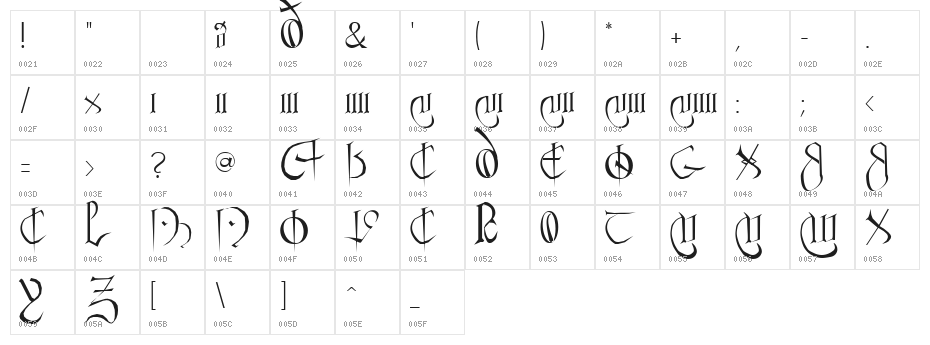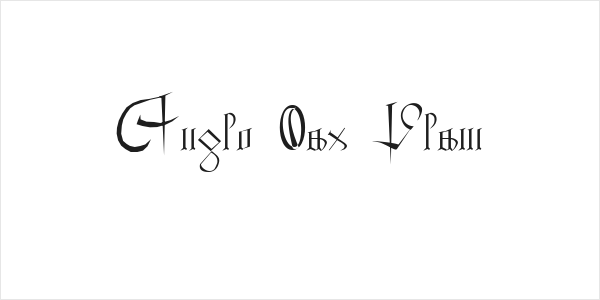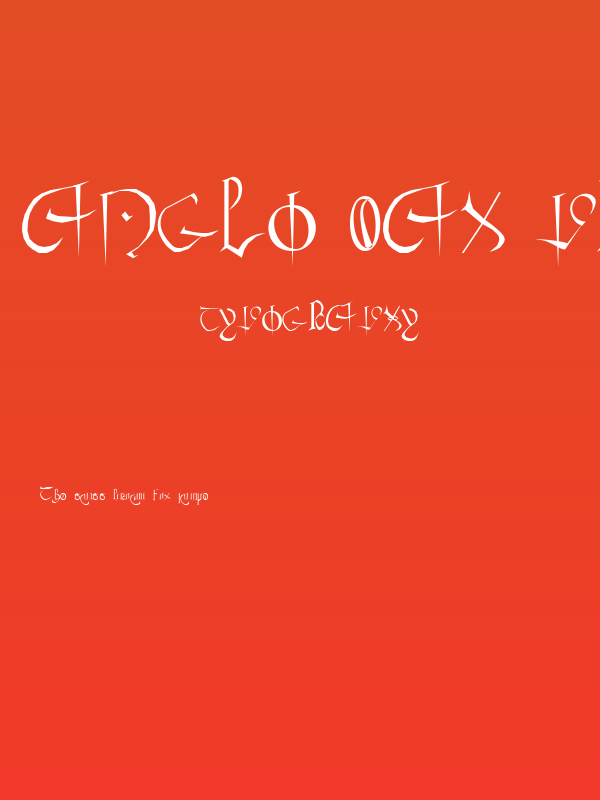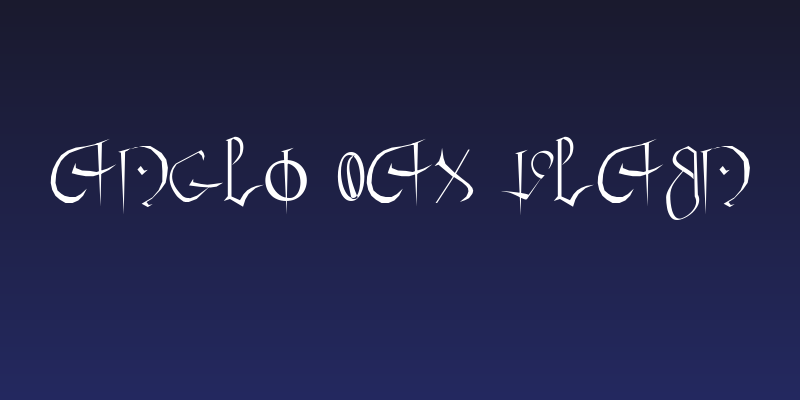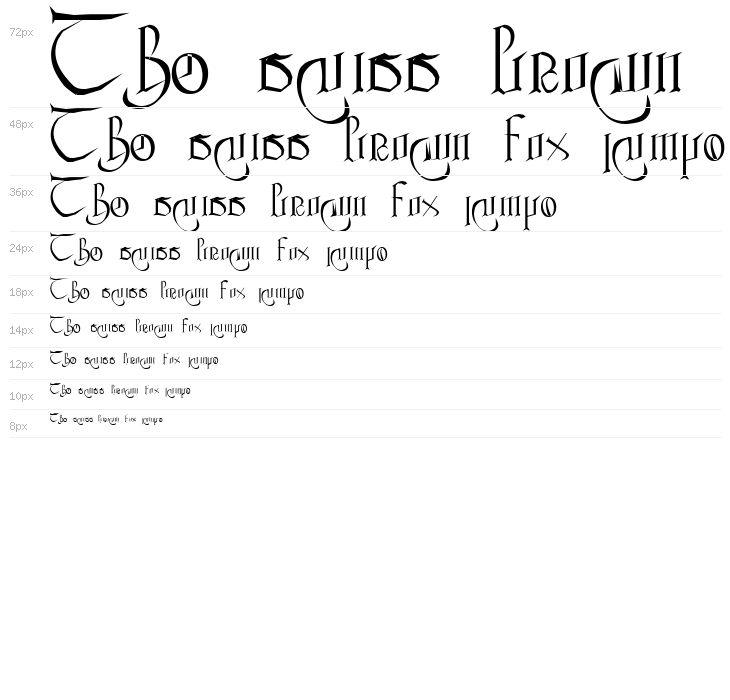
Anglo Sax Plain Font
Anglo Sax Plain Description
This font features a distinctively medieval and gothic aesthetic, characterized by sharp, angular lines and intricate detailing. The uppercase letters are bold and commanding, with a strong presence that evokes historical manuscripts. The lowercase letters maintain the same intricate style, offering a cohesive look across the alphabet. Numbers and special characters are designed with the same attention to detail, ensuring consistency throughout. The overall appearance is reminiscent of ancient scripts, making it ideal for projects that require a touch of historical or fantasy elements.
Overall StyleVintage
Proposed ProjectsIdeal for historical or fantasy-themed projects, book covers, posters, and video game graphics.